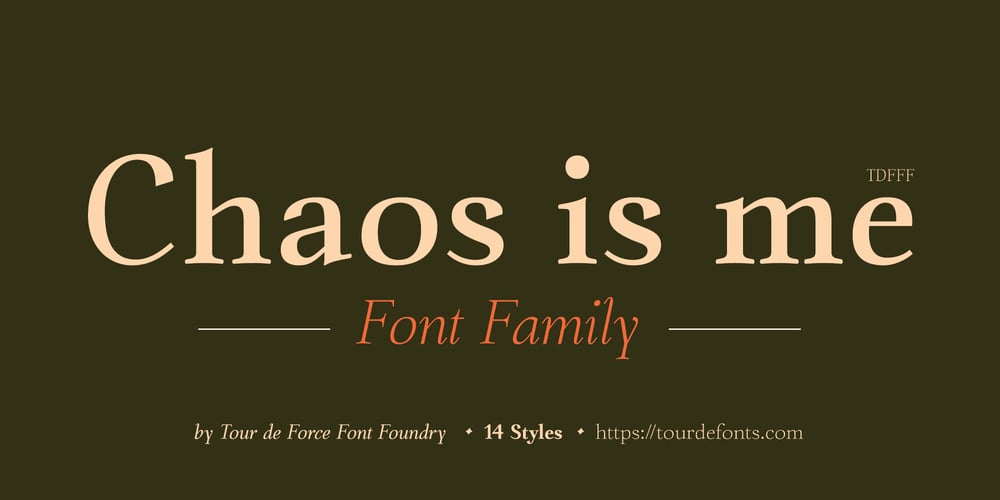
Chaos is me
Chaos is me font
Chaos is me Font Family was designed by Dusan Jelesijevic and published by Tour De Force. Chaos is me contains 14 styles and family package options. Chaos is me font family got its name from Orchid’s album.Without specific inspiration, Chaos is me combines several elements taken from traditional to modern serif fonts. By its visual character, Chaos is me is collection of strong, on moment rigid forms with soft and gentle details that are shaped together in well balanced characters.Comes in 7 weights with matching Italics equipped with OpenType features such as Standard and Discretionary Ligatures, Fractions, Small Caps, Case Sensitive Forms, Tabular and OldStyle Numerals.